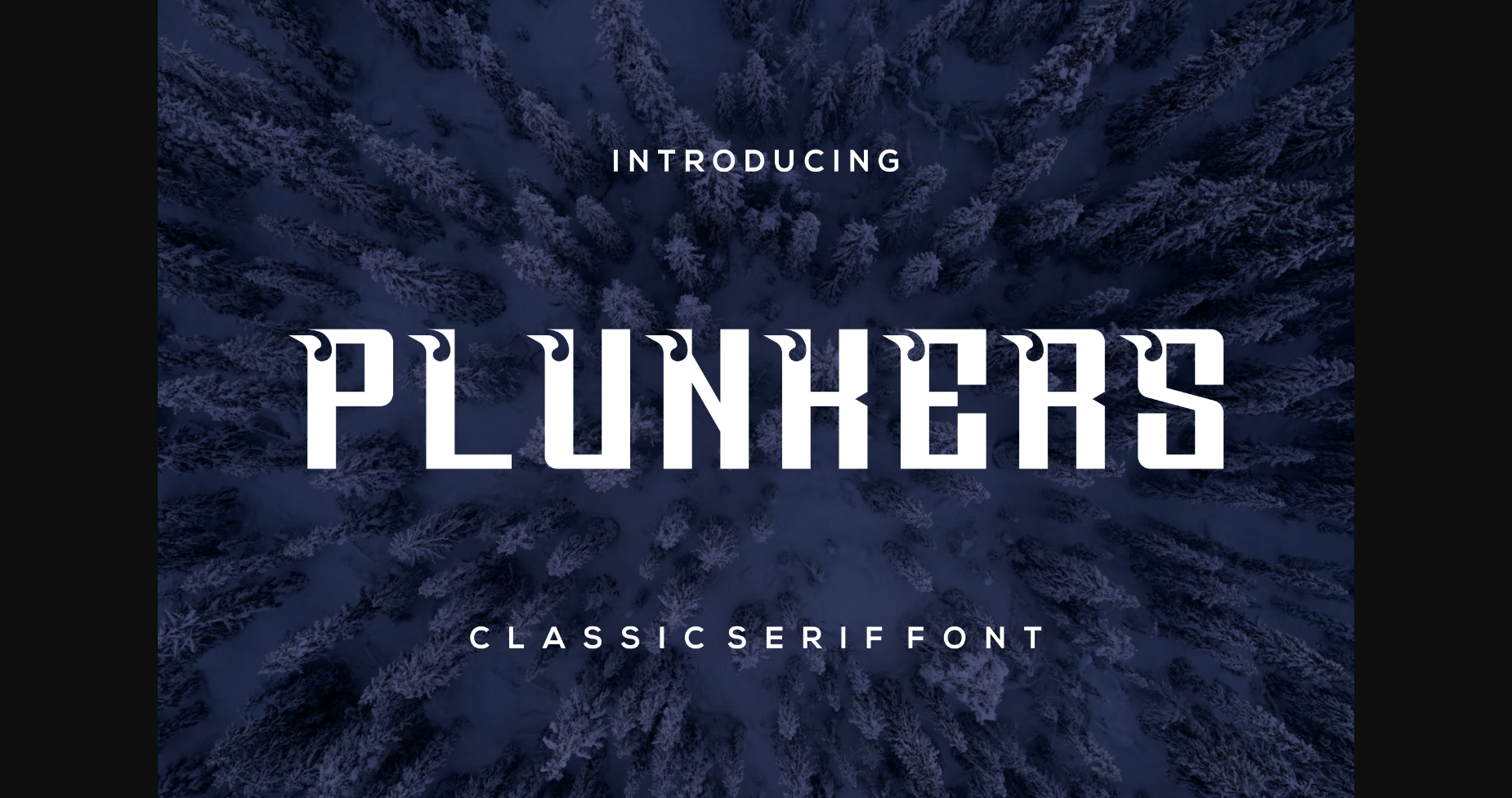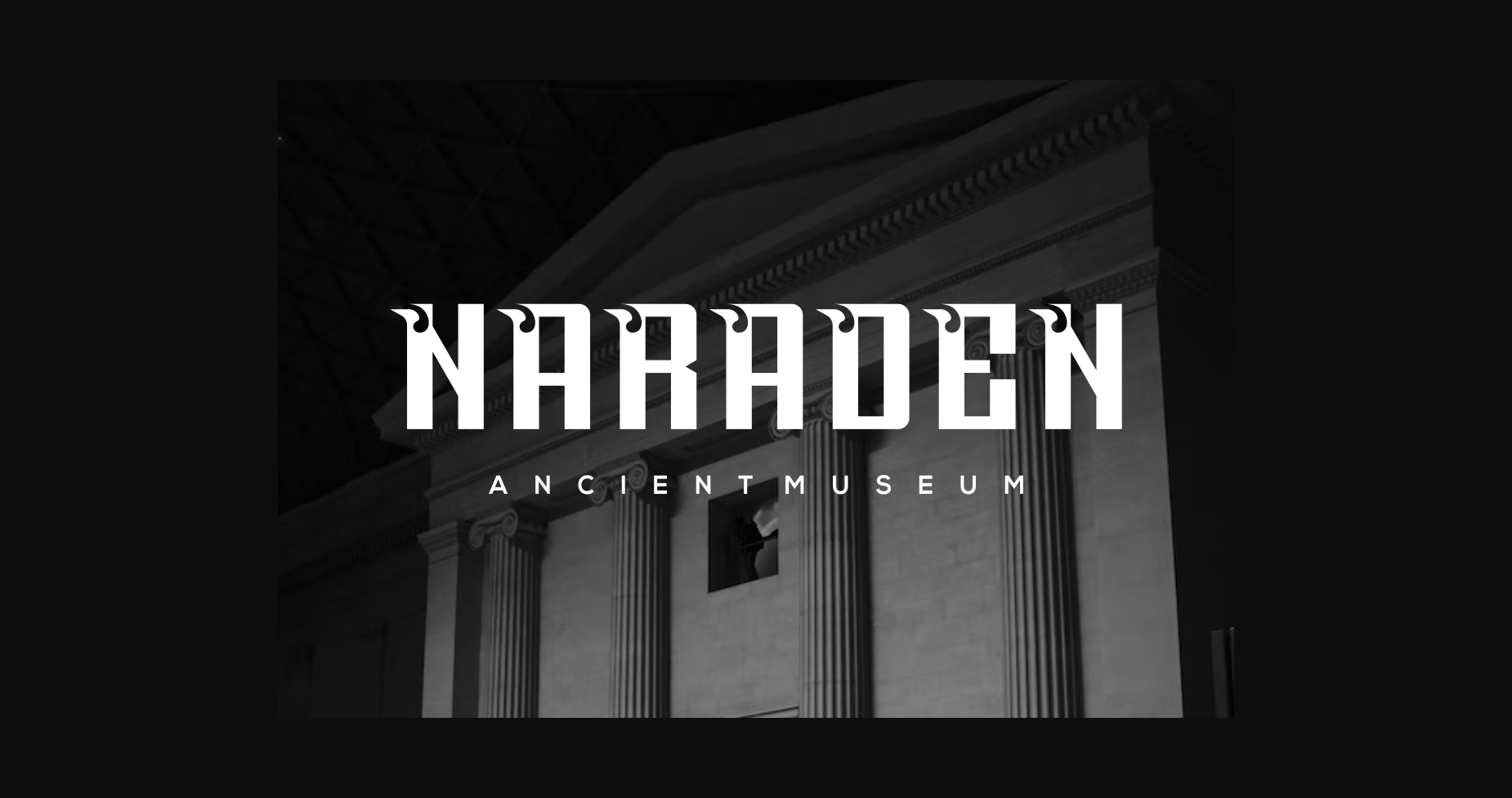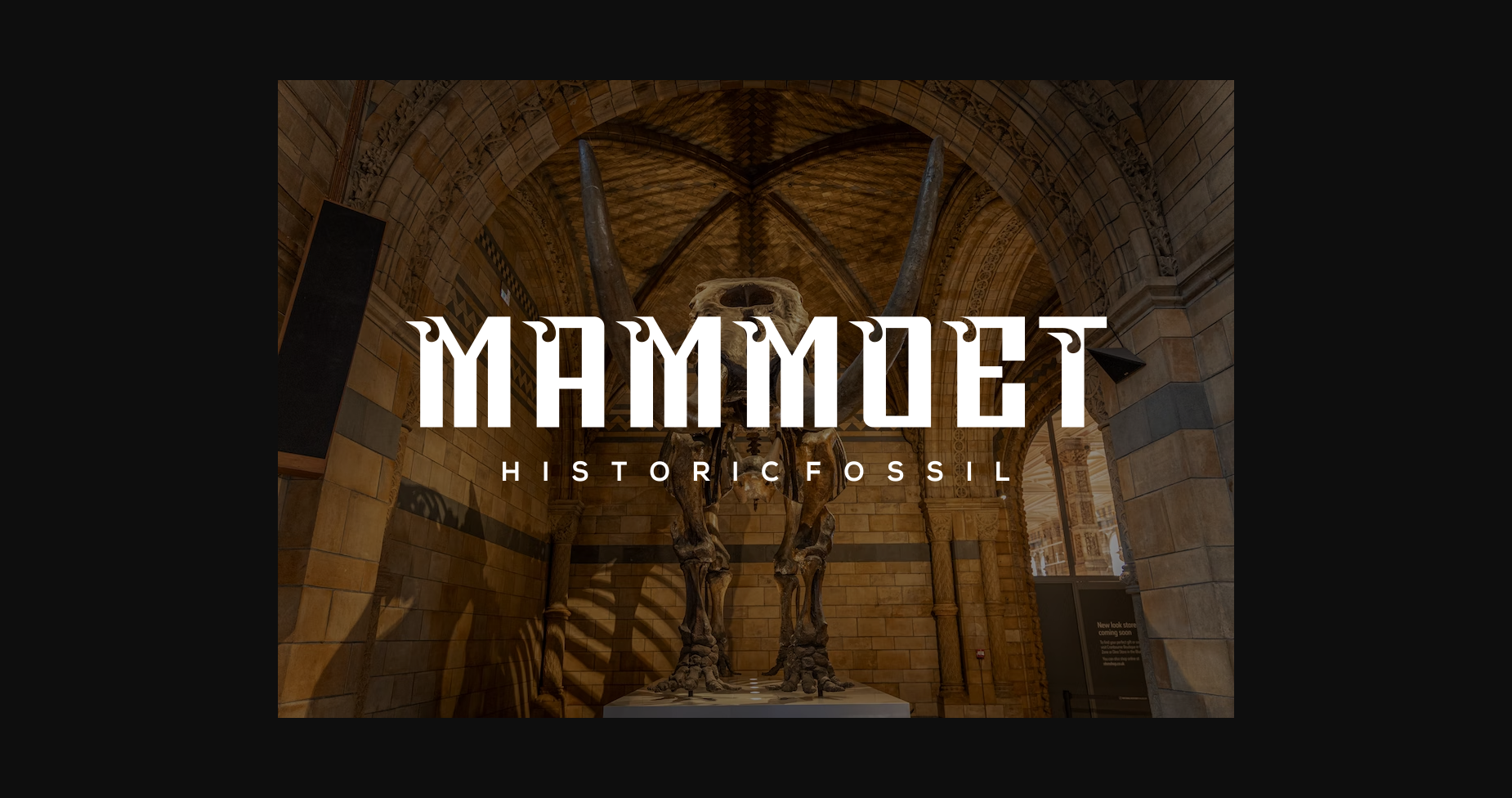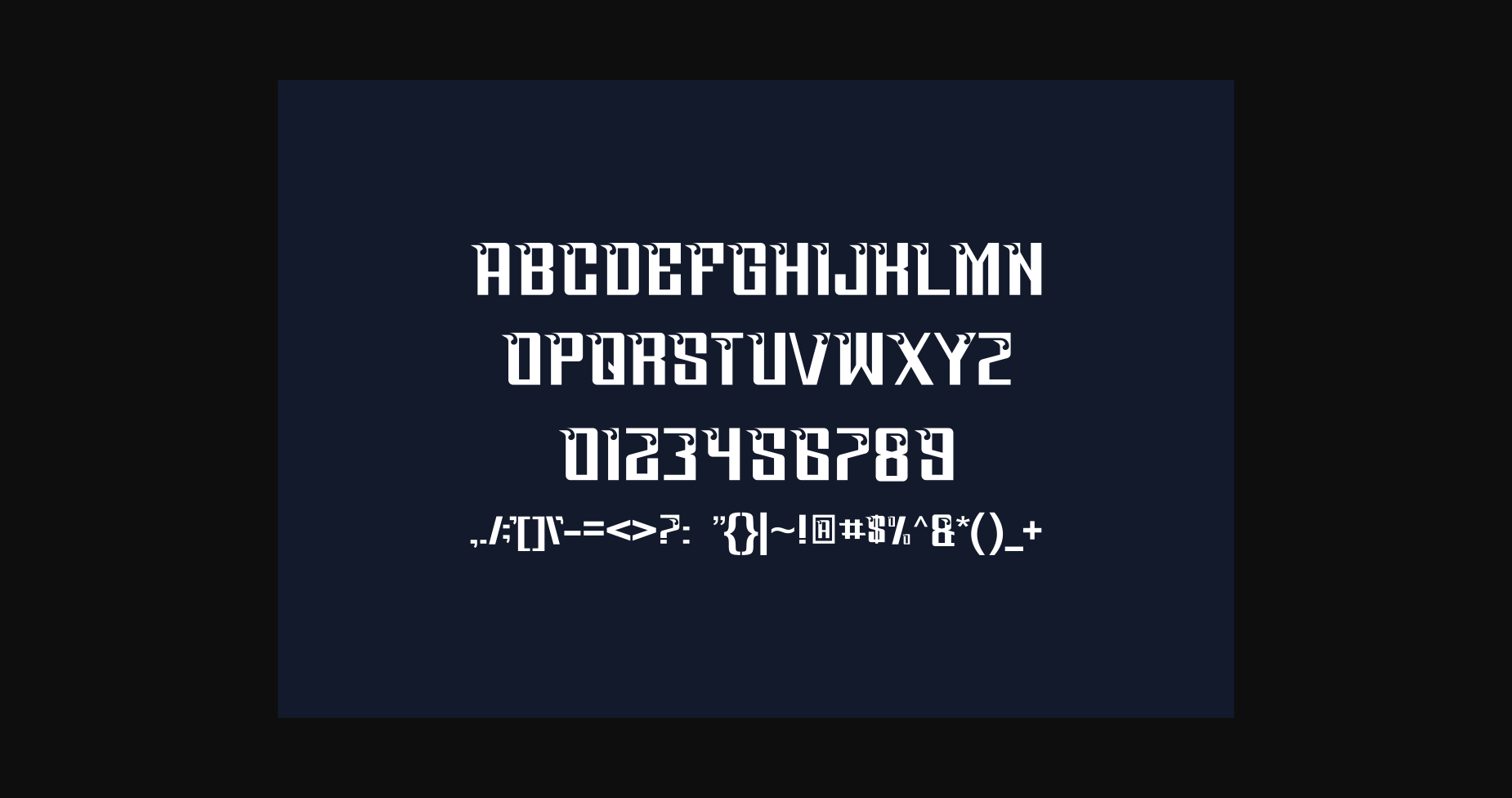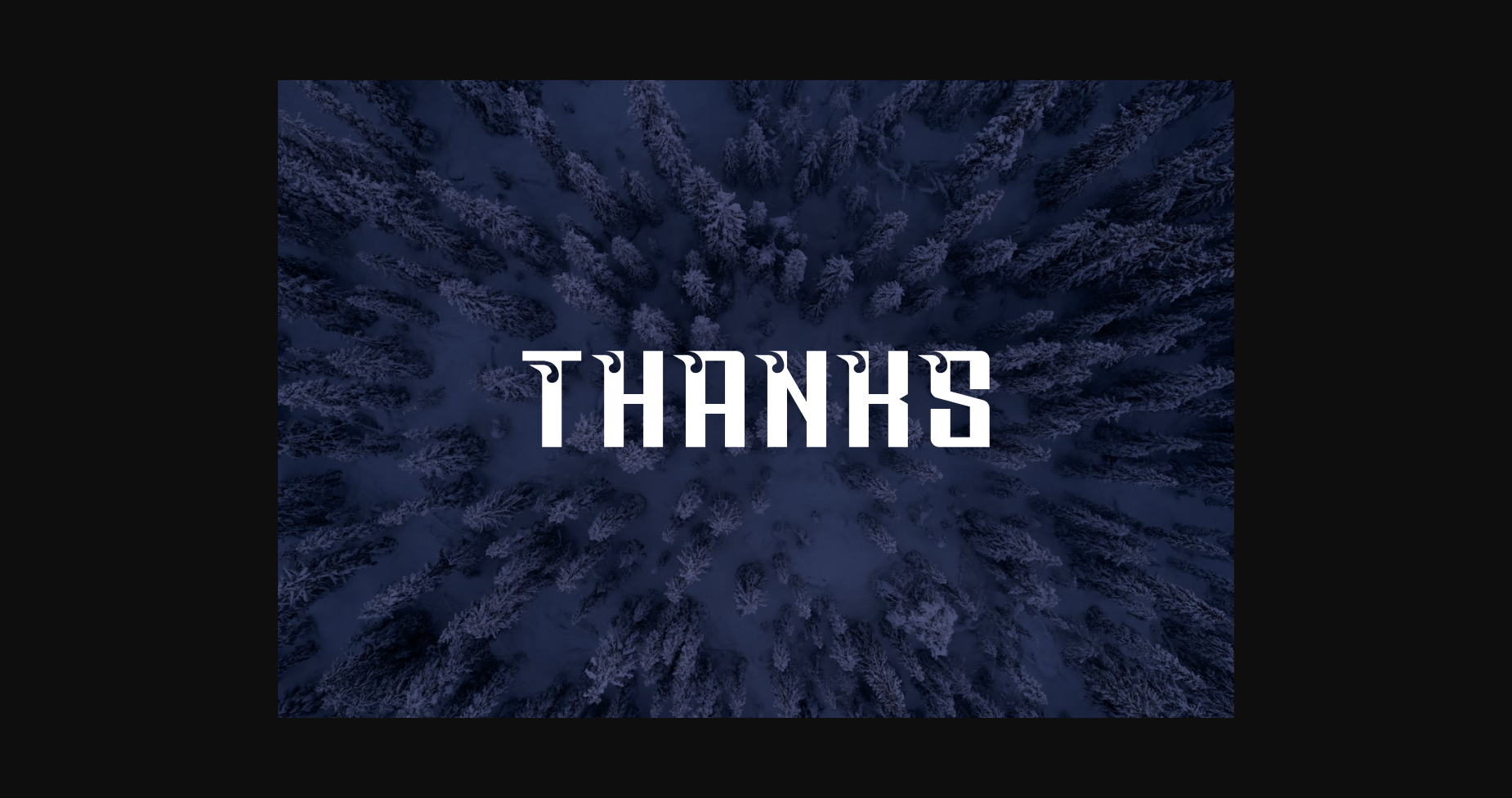
About Plunkers Font
Introducing our new product **Plunkers Font** – Modern Font
**Plunkers Font** – Modern Font is a bold and authentic display font. The font is suitable for any branding project like logo, t-shirt printing, esport, and many more. outstanding in a wide range of contexts.